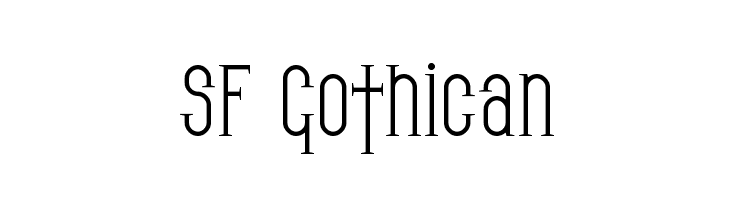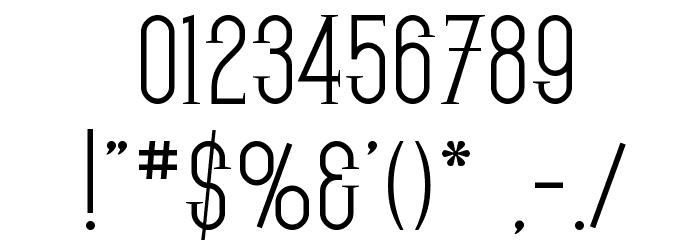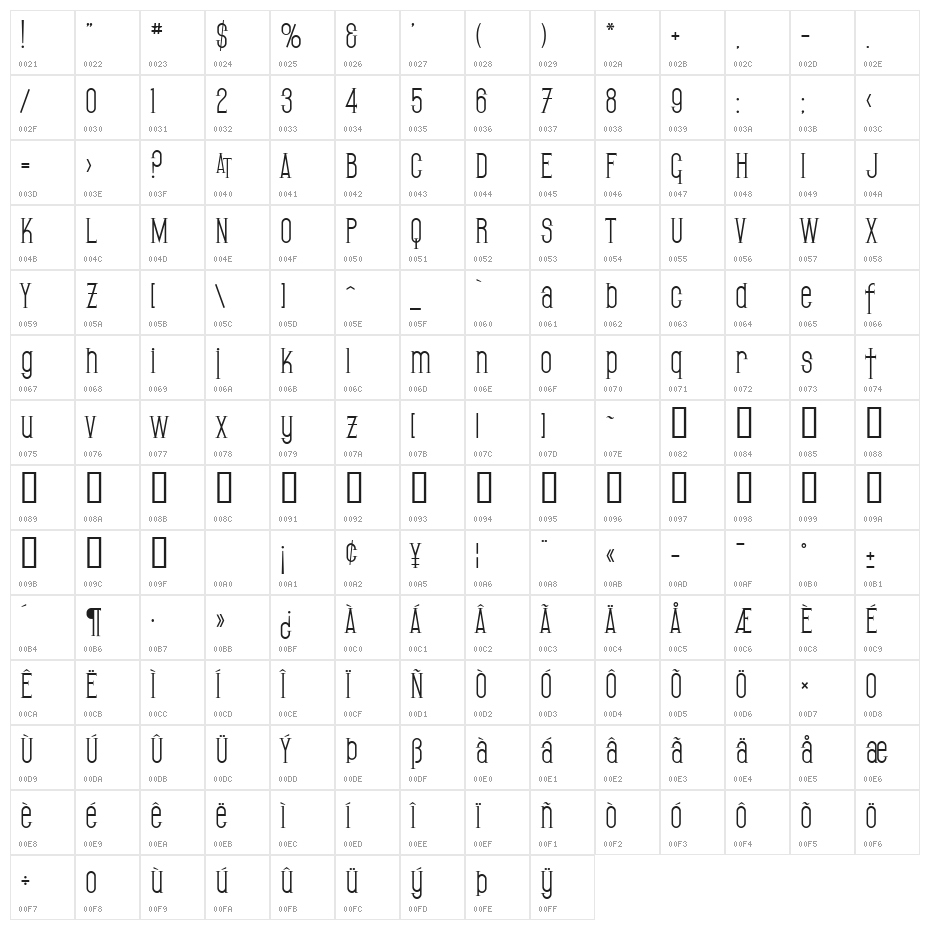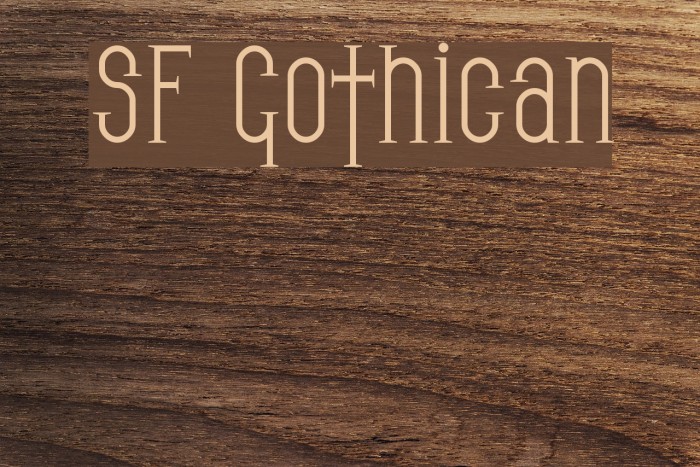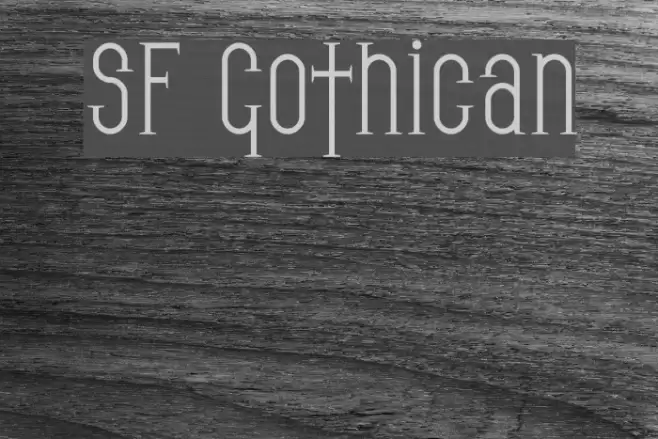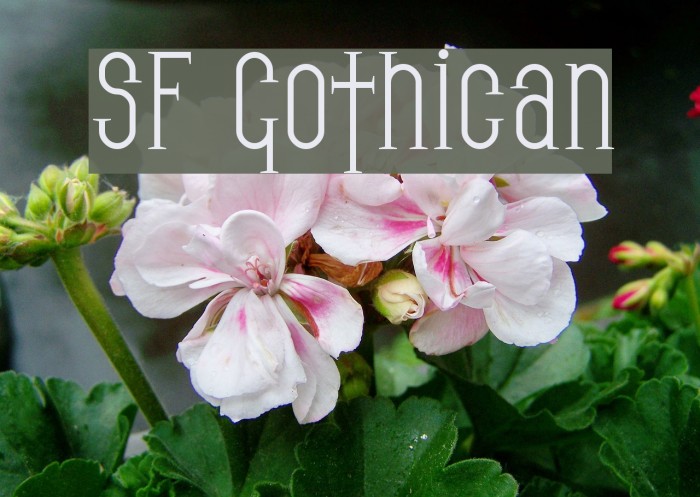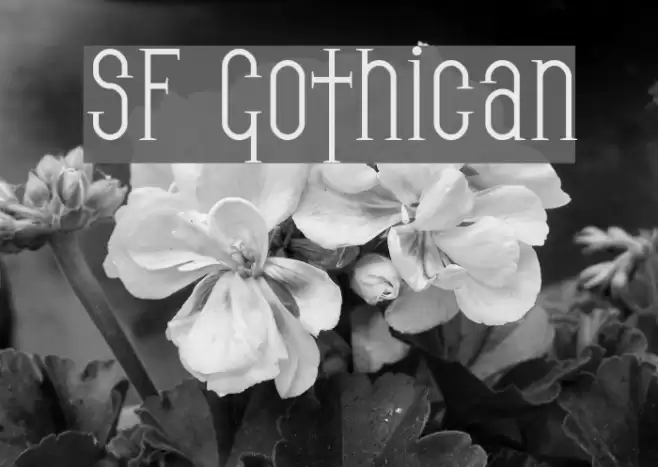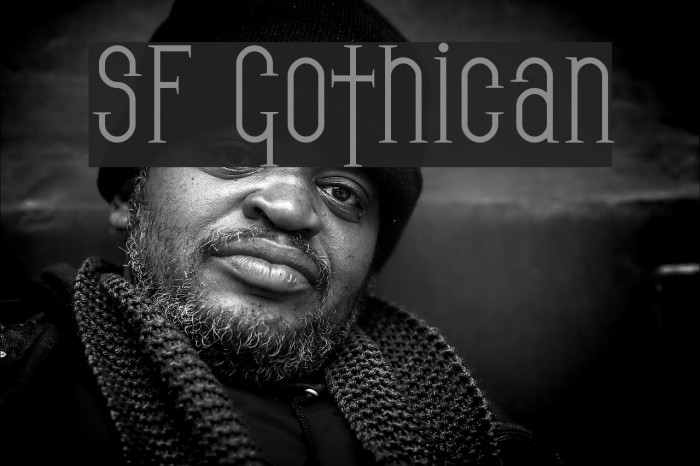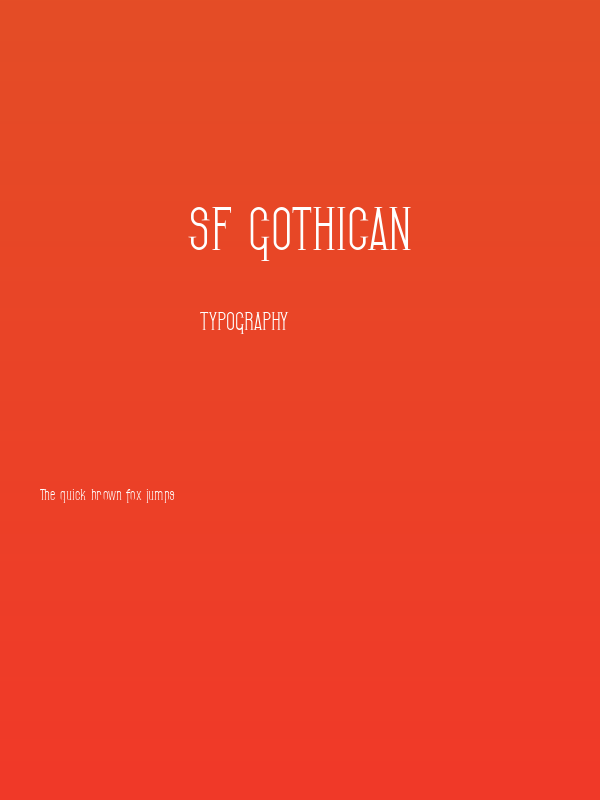
SF Gothican Font
SF Gothican Description
This font features a tall, narrow design with a distinct, elongated appearance. The characters have a modern and slightly industrial feel, with clean lines and a consistent stroke width. The uppercase letters are particularly striking, with sharp angles and a strong vertical emphasis. The lowercase letters maintain the same narrow proportions, creating a cohesive look across the alphabet. The numerals are clear and easy to read, matching the overall aesthetic of the font. Special characters are included, providing versatility for various design needs.
| Proposed Projects | Ideal for projects requiring a modern and clean aesthetic, such as branding, posters, and editorial design. |